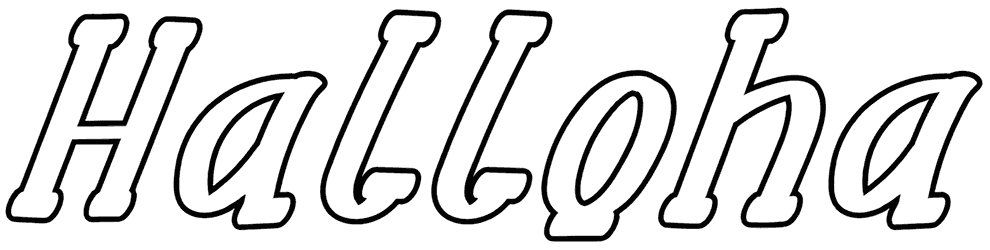
Halloha Font
Here we come again with an outline font that carries angular characters and is mostly known as Halloha. This font has a very captivating style and looks perfect on a wide set of graphic content, ranging from social media…
Here we come again with an outline font that carries angular characters and is mostly known as Halloha. This font has a very captivating style and looks perfect on a wide set of graphic content, ranging from social media posts, product packaging, stickers, and digital banners to applications.
Due to its unique form, it can lead to a sense of momentum, tenderness, vivacity, or jauntiness. Also, visit the RB collection for daily updates.